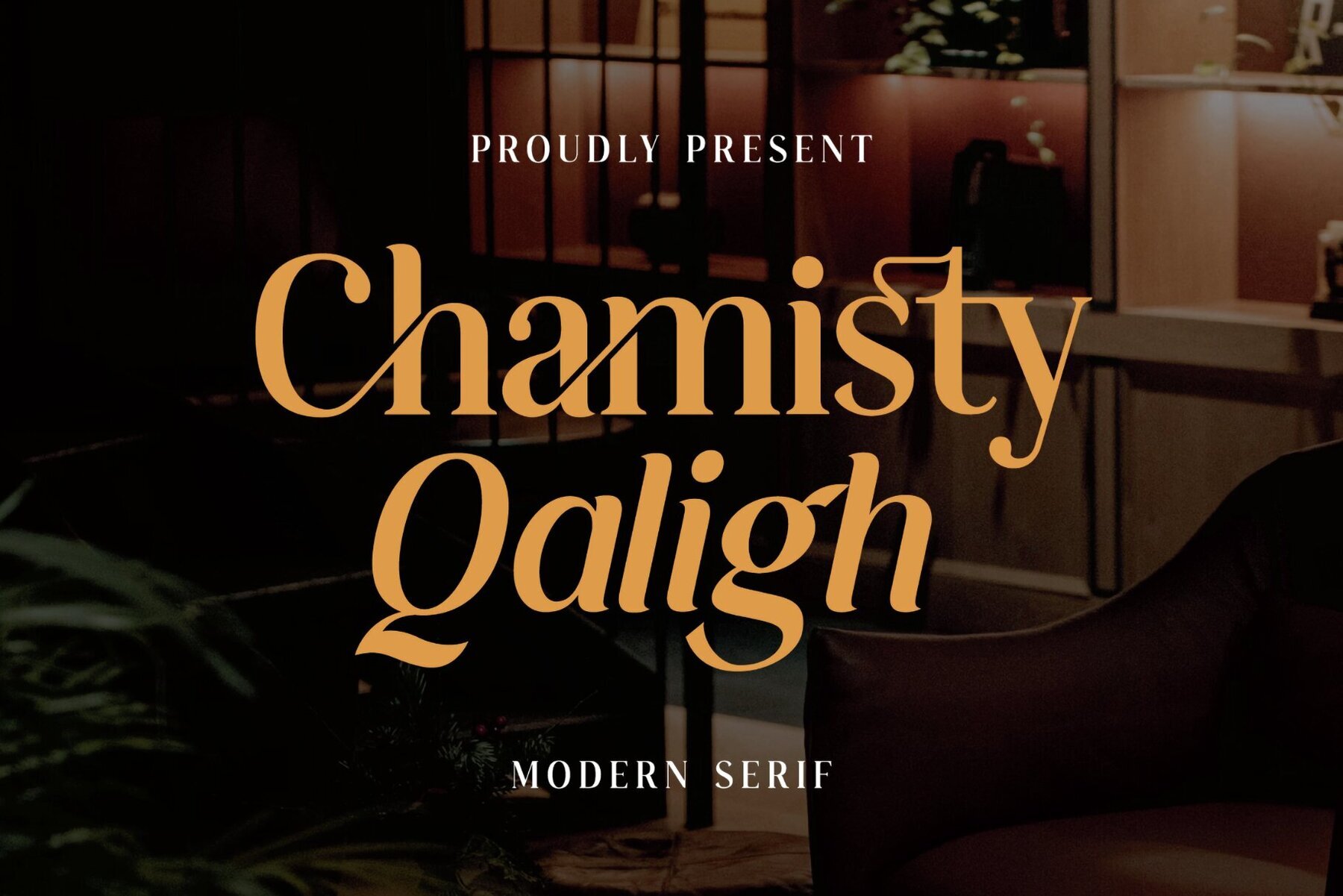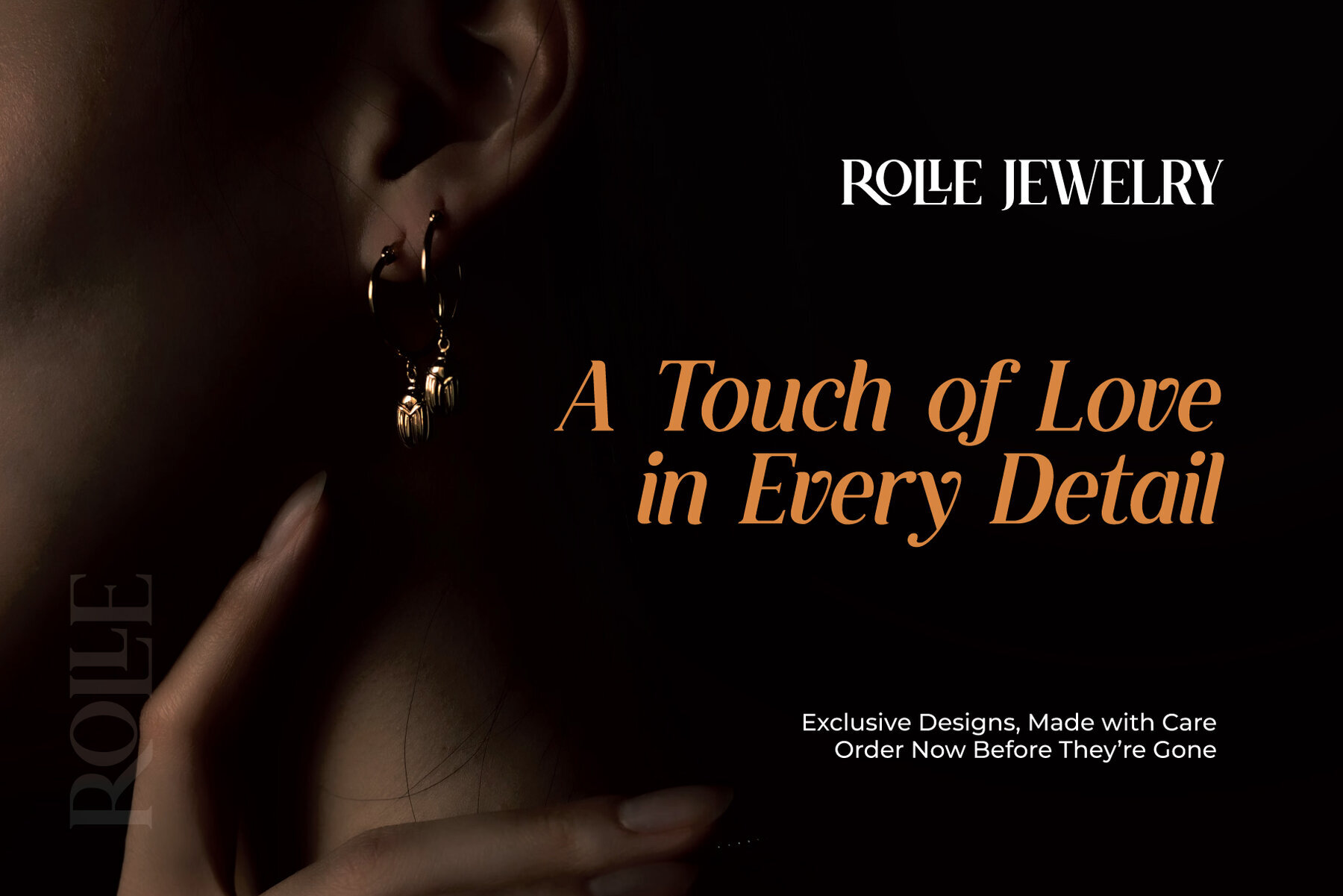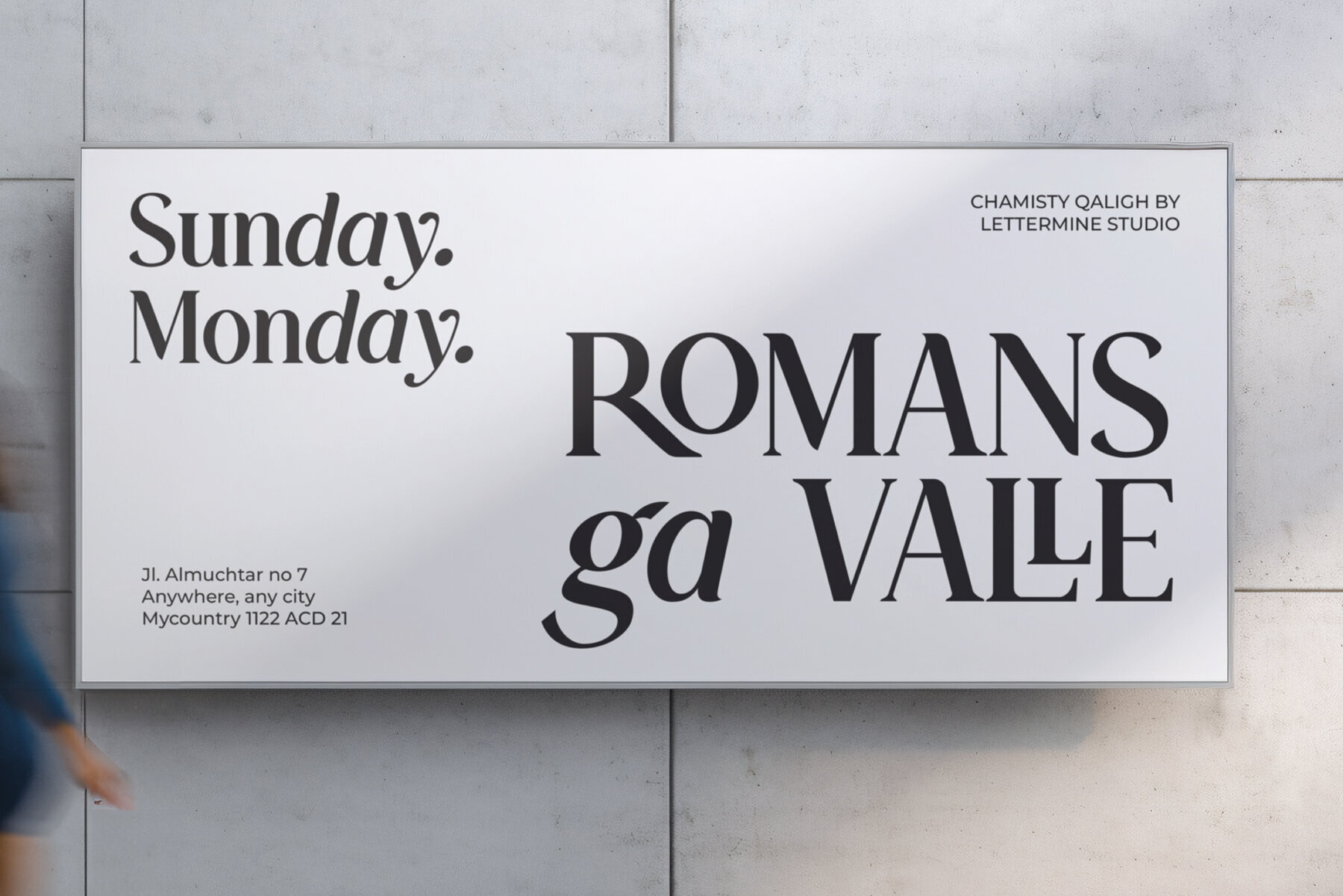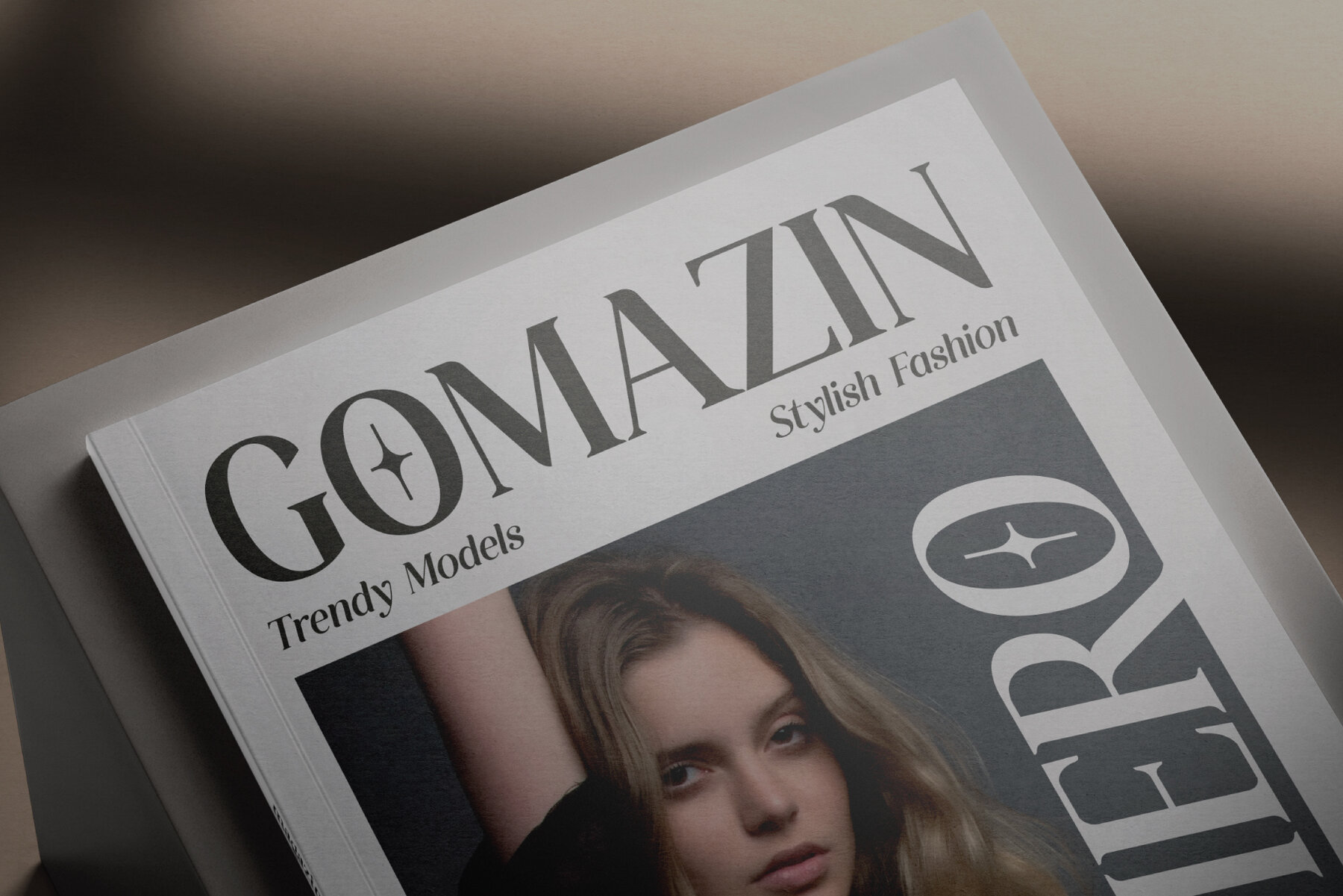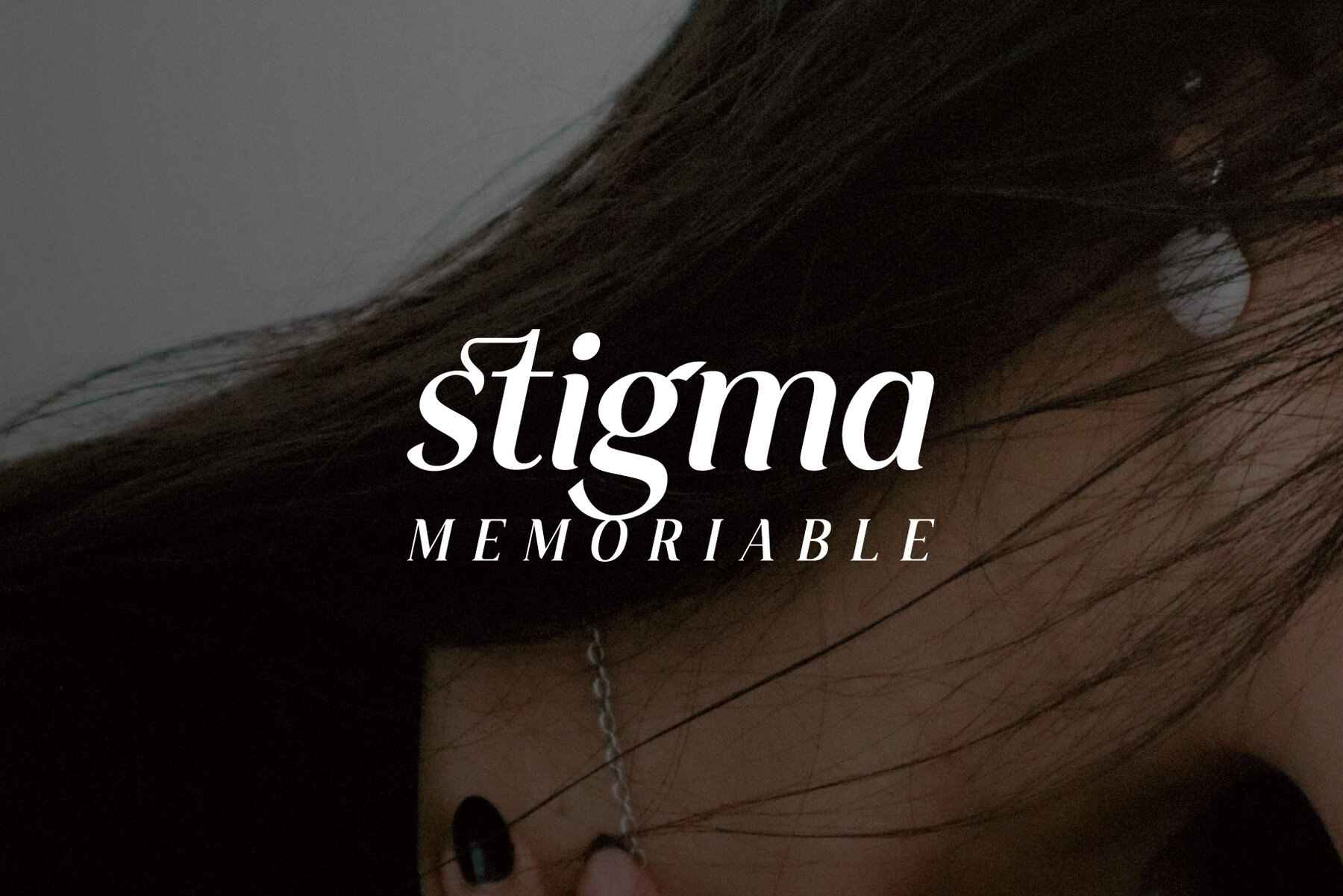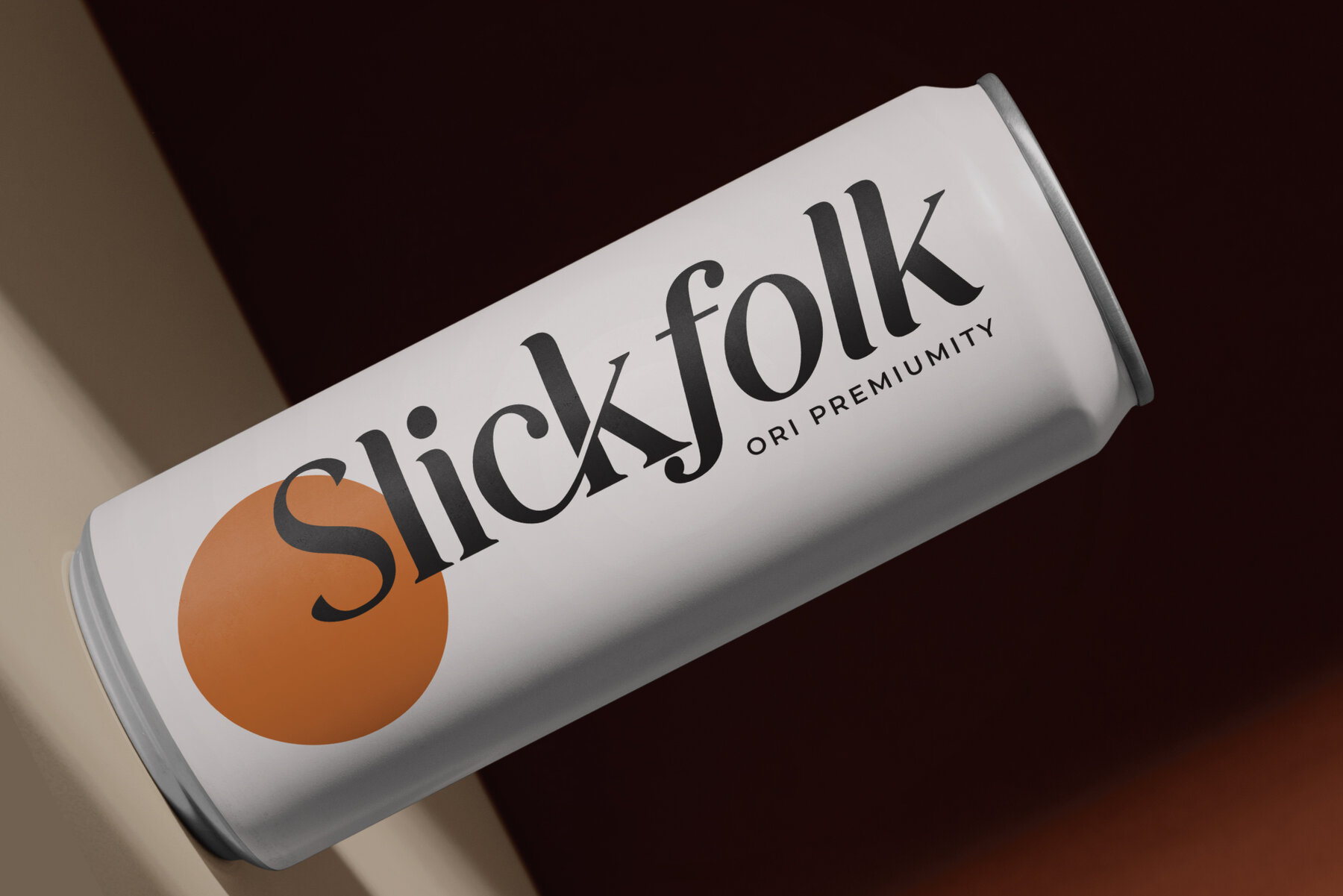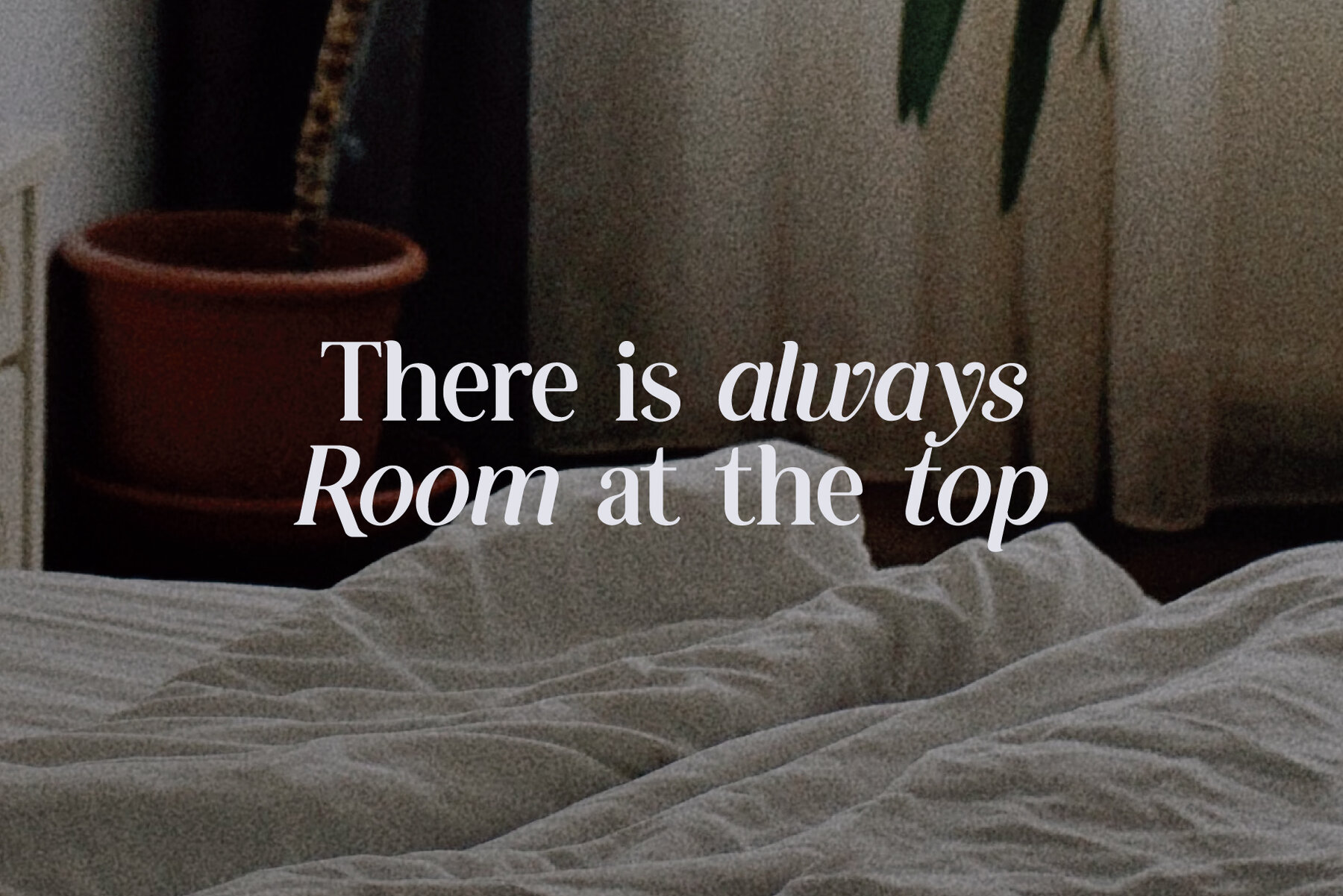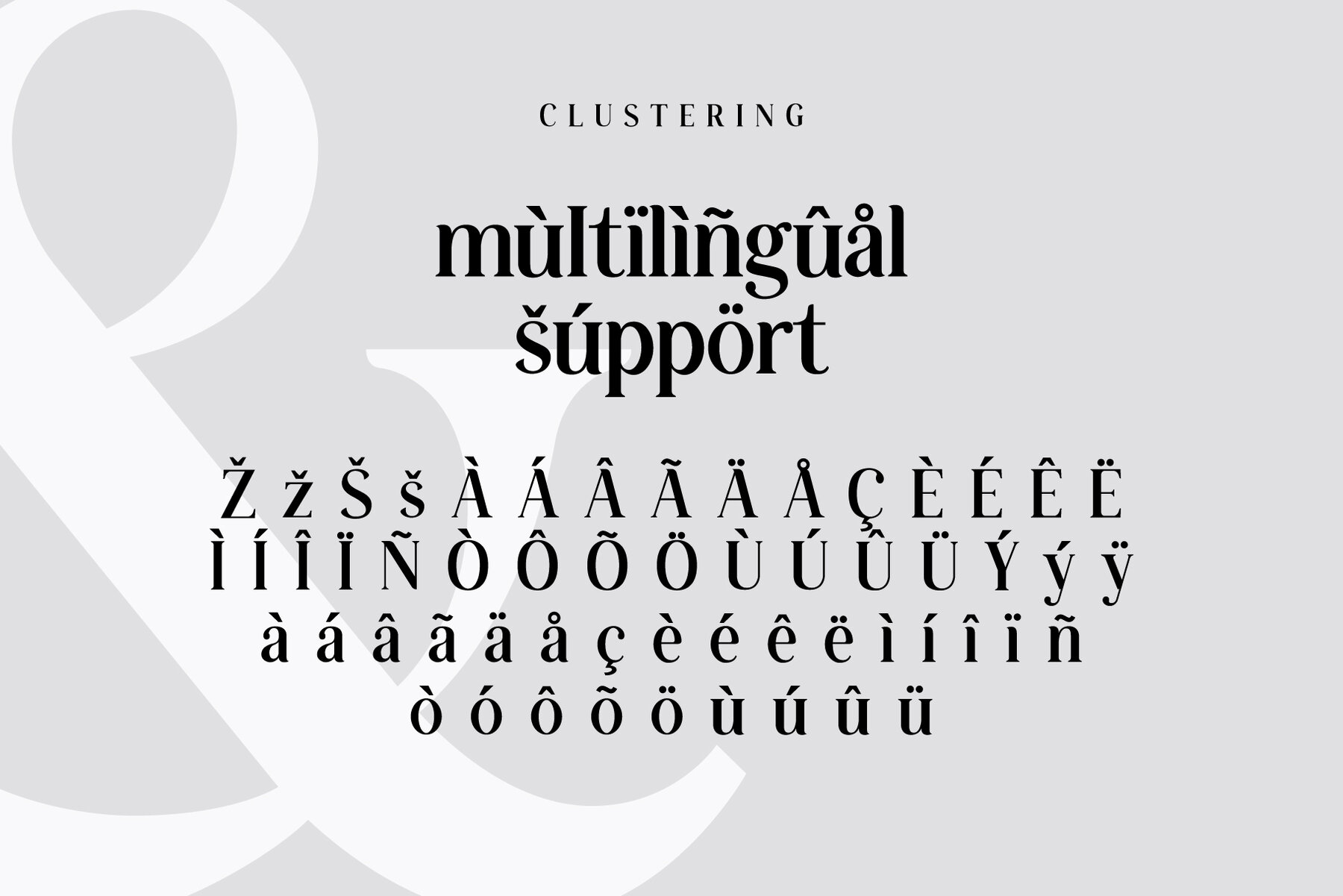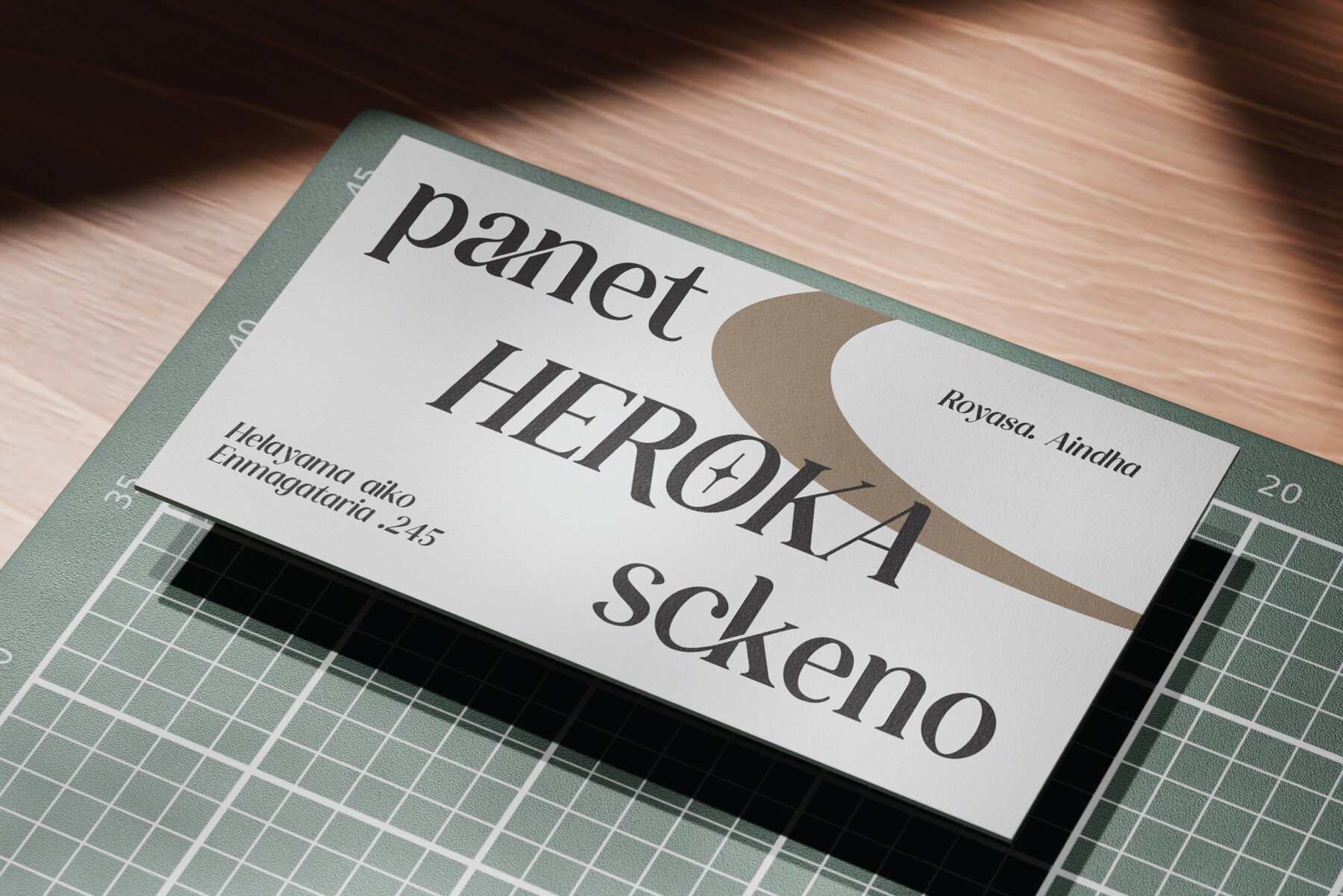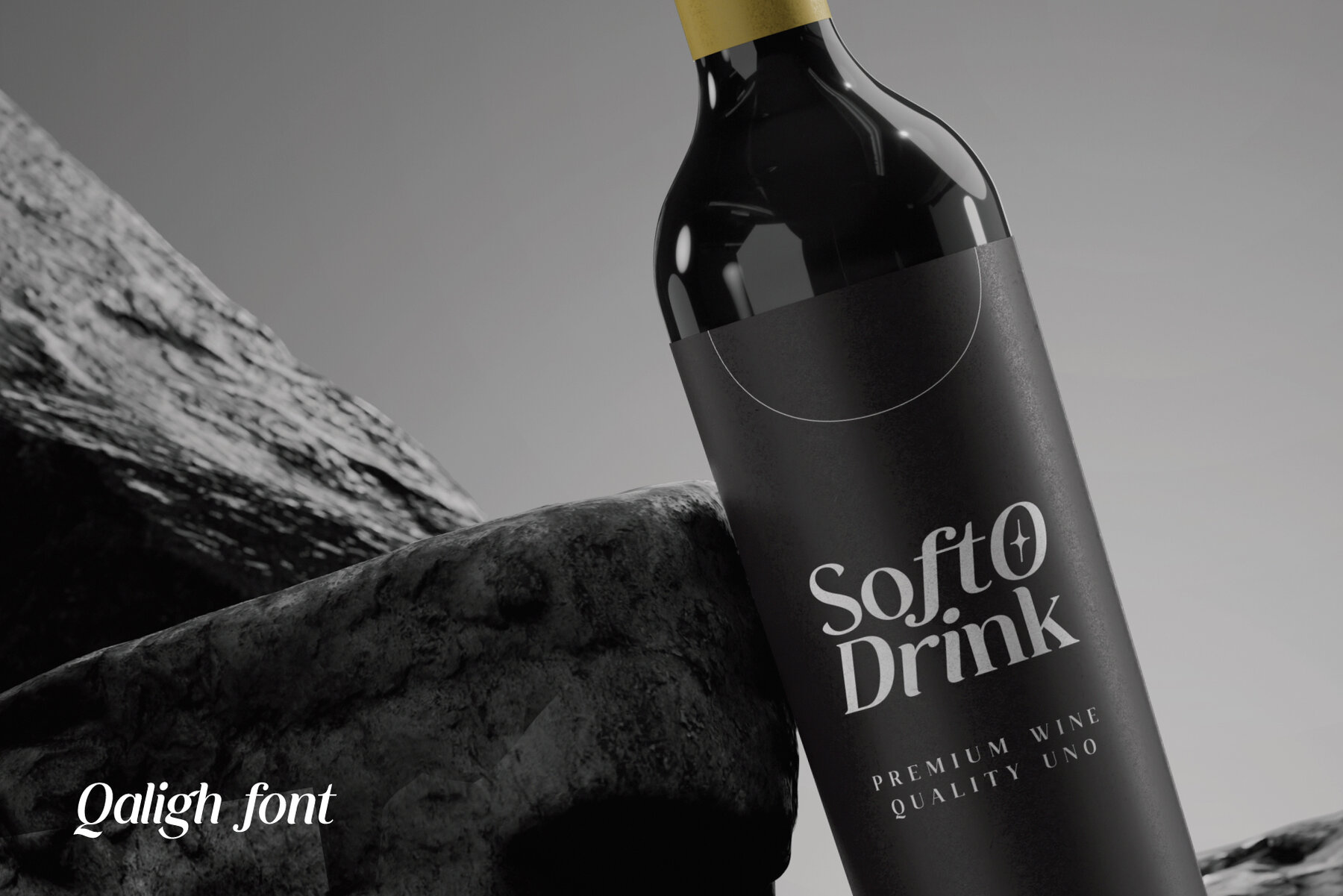
Chamisty Qaligh Font
Chamisty Qaligh presents a refined modern serif font, striking a harmony between classic and contemporary design. Each character offers fine details and graceful curves, lending an air of sophistication to any project. Perfect for branding, editorial work, and stylish headlines, this font ensures a professional finish.Chamisty Qaligh: A Modern Serif Font